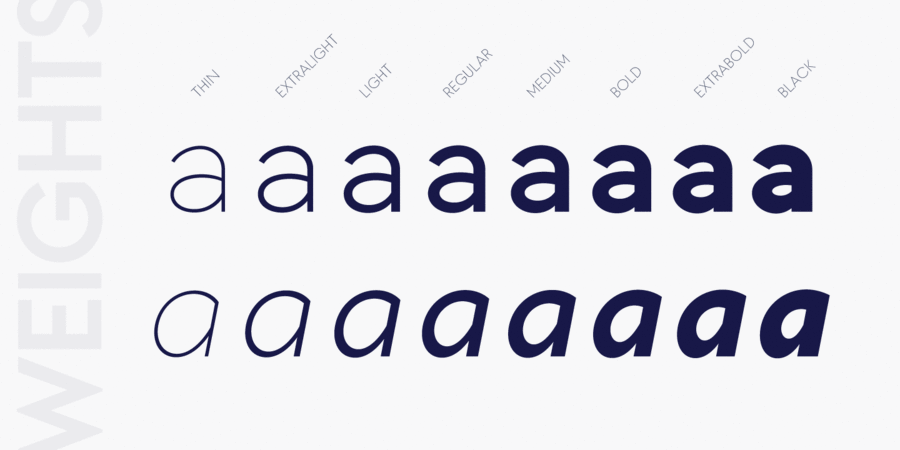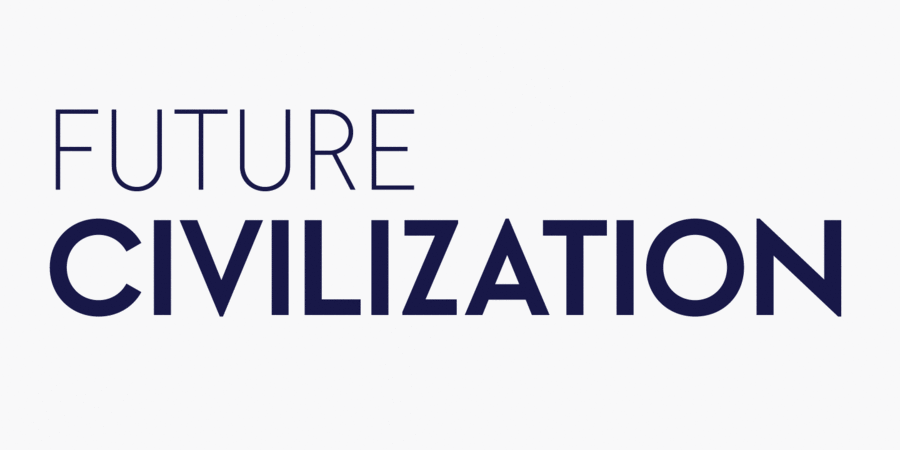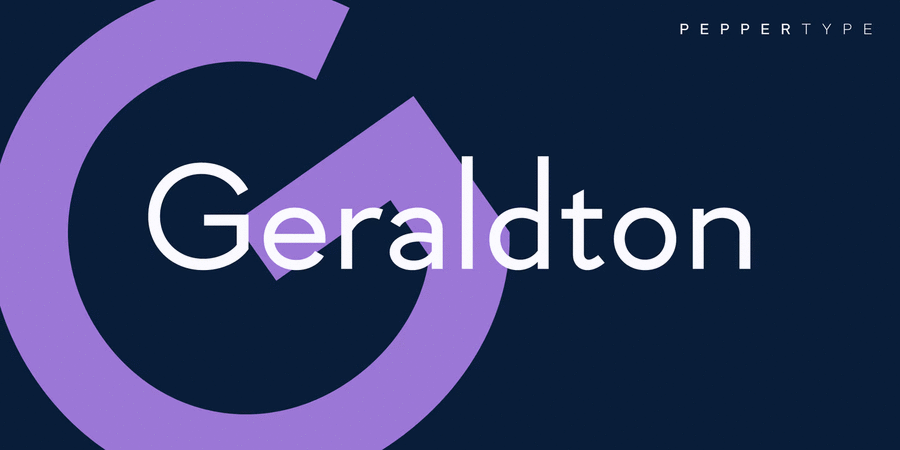
About Geraldton is a warm and friendly geometric sans-serif typeface in 8 weights with matching italics. Its low x-height and sharp angles are inspired by geometric types of 1920s and 1930s completed with a slight modern humanist touch. It features support for all European Latin-based languages as well as Cyrillic script. Apart from being equipped with numerous OpenType features, it also contains dozens of computer-related dingbats. The typeface was designed by Oleh Lishchuk in 2020.